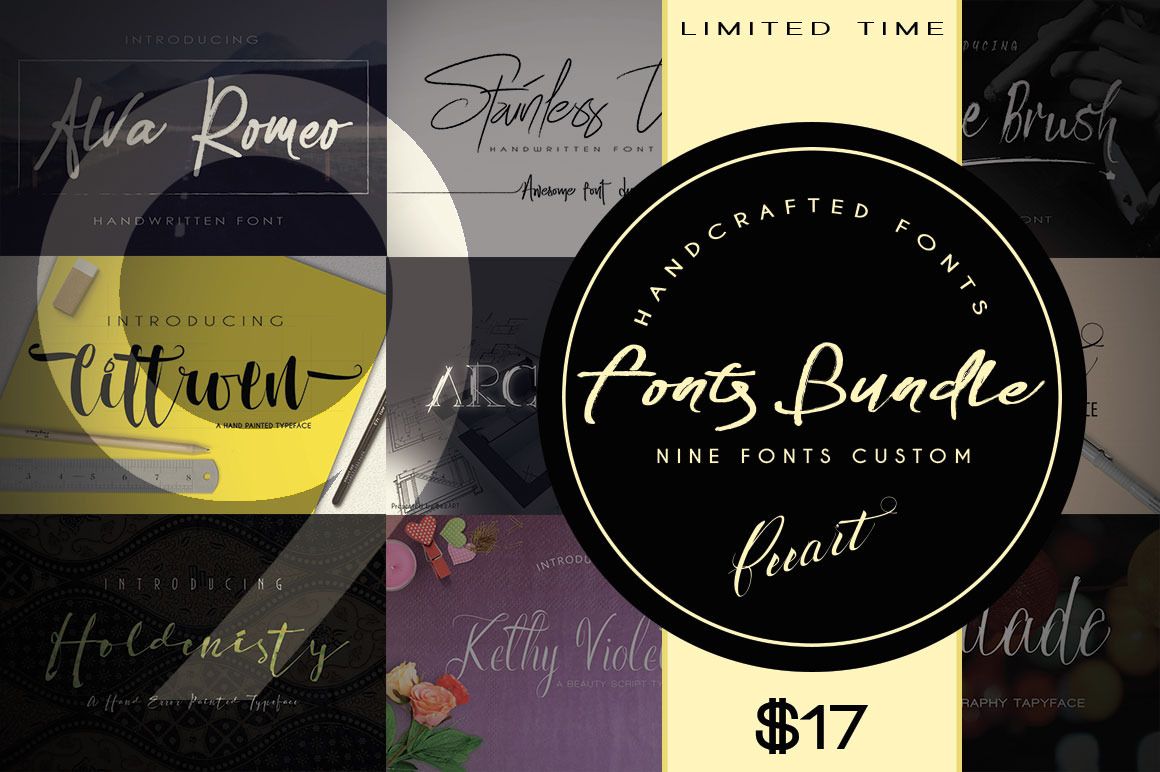
Fonts Bundle
Introducing one of the best massive fonts from us Help you to create your project with applying this 9 fonts custom related to your core project. make purchase for your own in limited time offering Grab it now..!!!
Suitable for Branding, greeting cards, business card, apparel, t-shirt (your name), signature, logo, correspondence, and a variety of other purposes.
9 fonts custom :
All of them handmade special offers soft touch and gentle to give a feel that is perfect for your latest project.